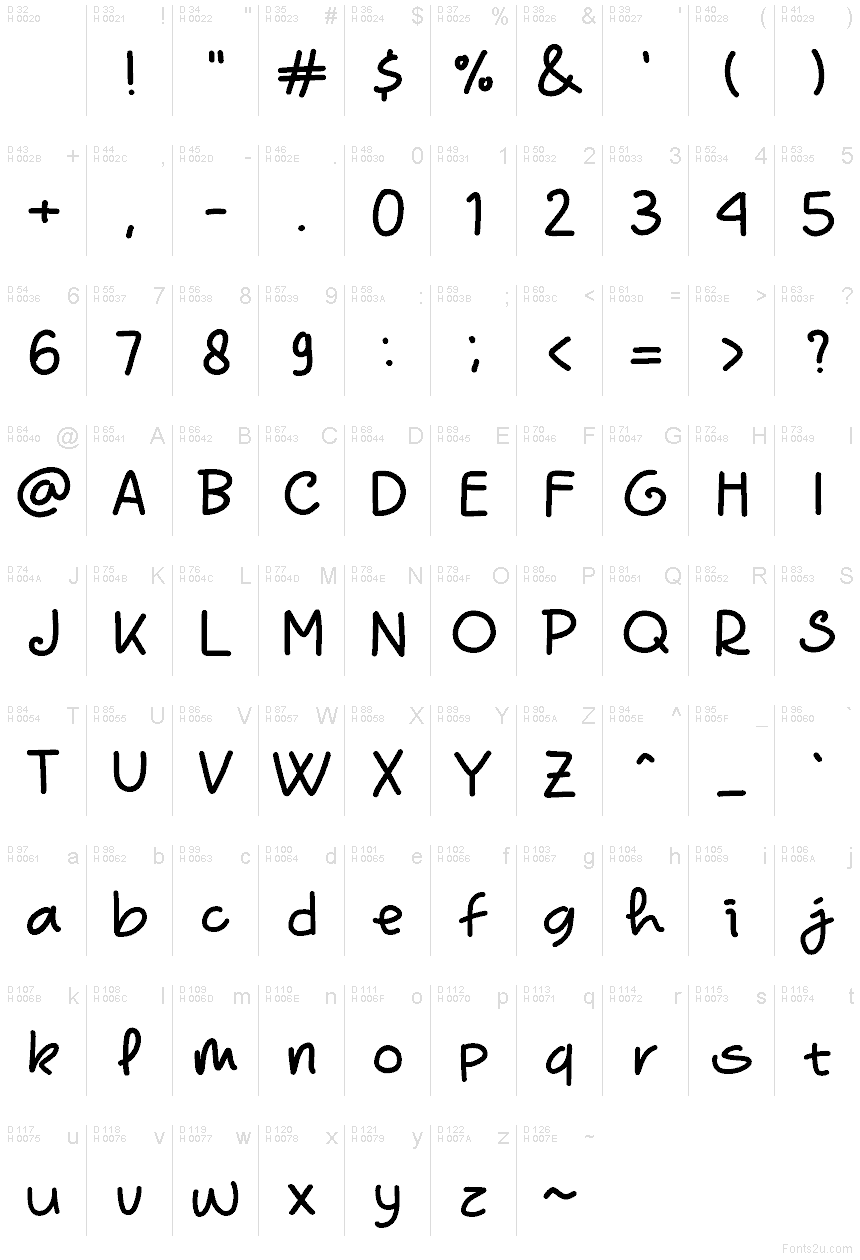
The Question
The Question font by Origin Type is a free handwritten typeface. It solves the tricky brief of “friendly but readable,” with soft, rounded strokes, a steady x-height, and gentle bounce that feels human without getting messy. The monoline weight and open counters keep text clear at small sizes, while the spacing has that easy, note-in-the-margin rhythm designers reach for but rarely find.
Using The Question, headlines and callouts pop on classroom worksheets, explainer graphics, recipe cards, event flyers, journaling apps, and YouTube thumbnails. This free font brings warmth without clutter, so your message stays front and center. Pair it with a crisp geometric sans for body copy, and let The Question handle the conversational bits at medium to large sizes.